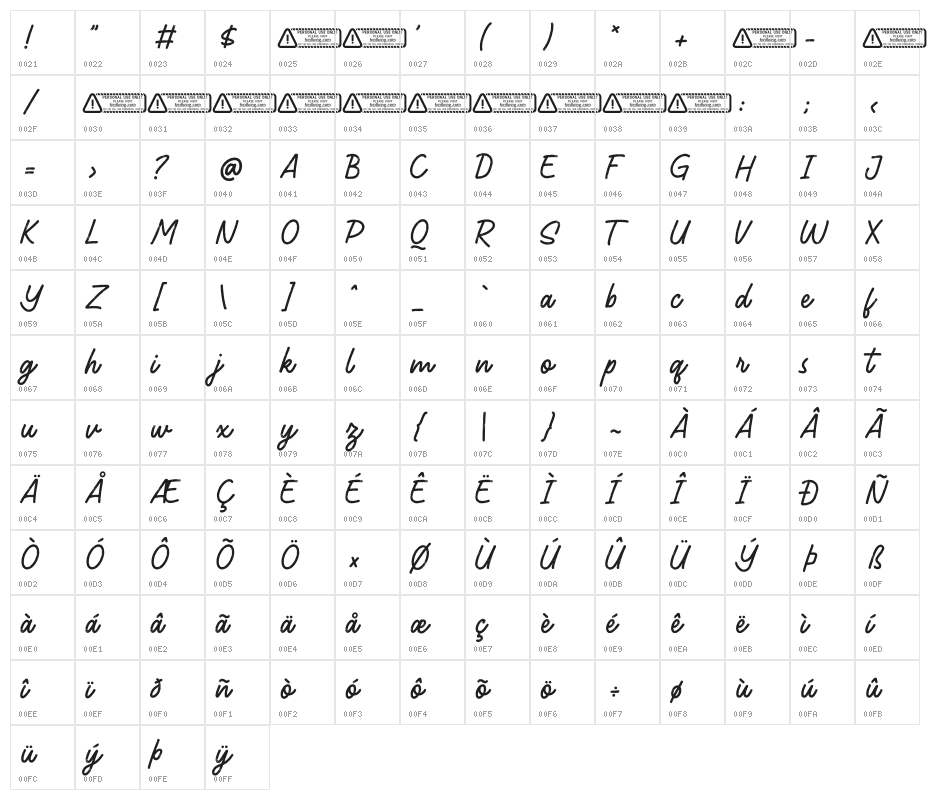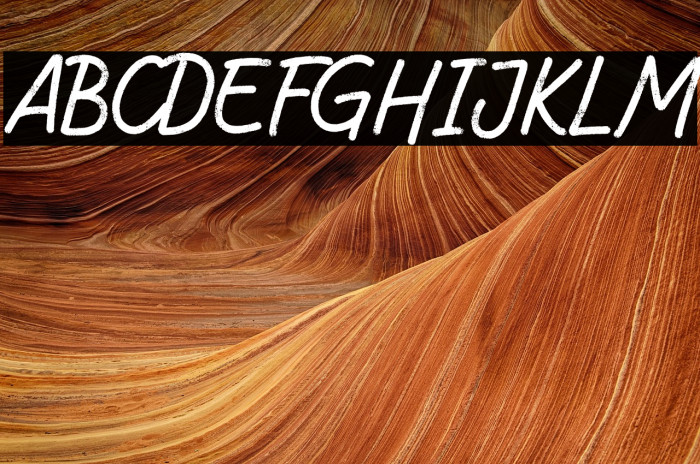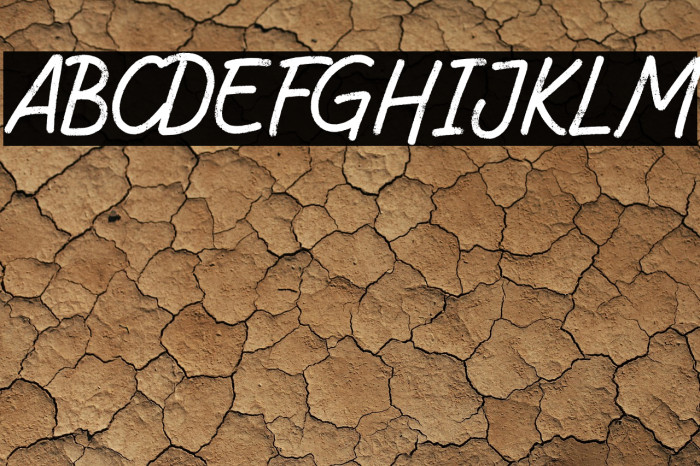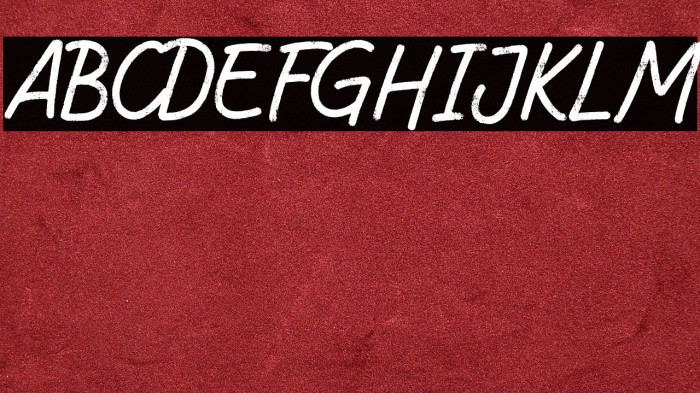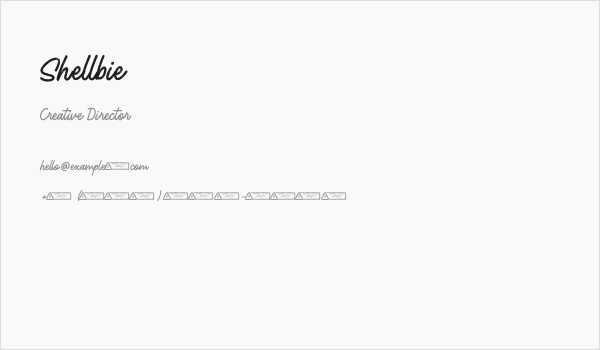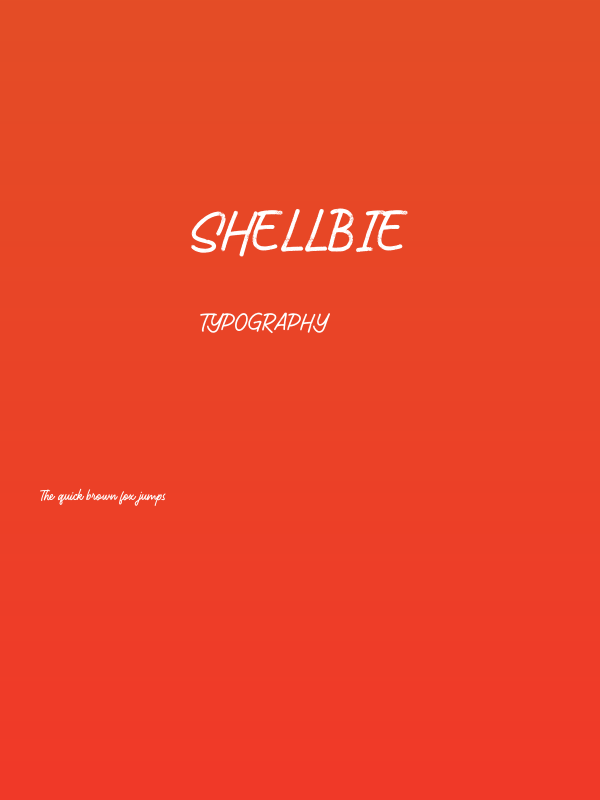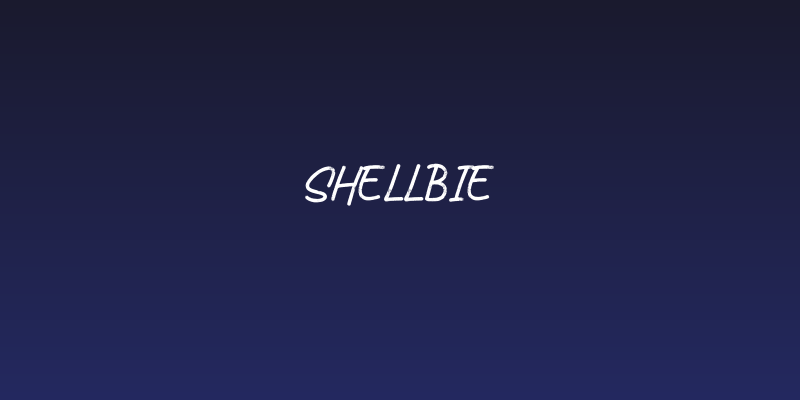
Shellbie Font
Shellbie Description
This font exudes a casual and handwritten style, characterized by its fluid and connected letterforms. The uppercase letters maintain a consistent height, while the lowercase letters exhibit a natural flow, enhancing the handwritten feel. The strokes are smooth and slightly textured, adding a touch of authenticity and warmth. The font's playful nature is balanced by its readability, making it suitable for various informal applications. The special characters are crafted with the same attention to detail, ensuring a cohesive look across all glyphs.
| Overall Style | Casual, Playful |
| Use Case | Headlines, Informal Text, Personal Projects |
| Proposed Projects | Ideal for greeting cards, personal branding, social media graphics, and informal invitations. |